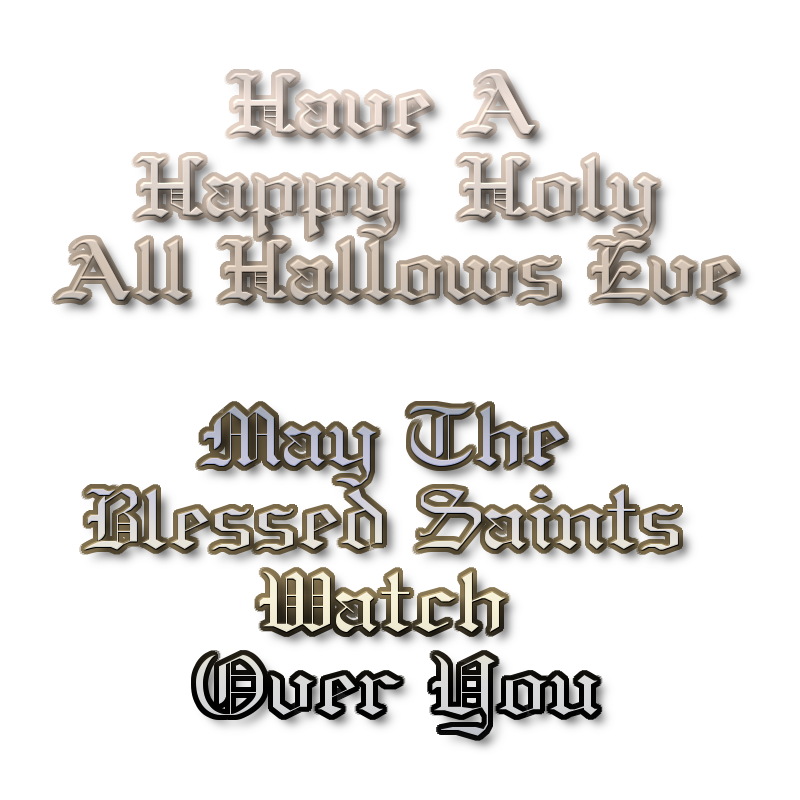
DISCARDED DESIGNS
TV and other media sometimes gives the false impression one can whip up a design and finish it in a matter of minutes or hours never days or weeks.
Well yes sometimes one can be on a roll and get a design to finishing point in one day but I always try to leave the design for a day or two and come back and take one last look and THEN look at it on a number of browsers and sites.
Sometimes it looks great in Inkscape or Gimp but once I upload at a smaller or larger size to Facebook Google Plus or Twitter ro Red Bubble or CafePress or Deviant it looks different.
This series was inspired by 1 Corinthians 13 :13
Looks great expect for the little problem of the uncial t touching the i and making faith look like fath or fach on a small PR sized thumbnail
other alternatives I considered for this
I may yet use this but on dark colored tee shirts only.
and this is me playing with filter combos
Would work as a print on paper or an album or book cover but fabric ?
So finally I tweaked the letter spacing on the first design.
Hopefully it will now work at ALL sizes!
I've probably over emphasized the initial L but if it draws your eye to the rest of the lettering ...?